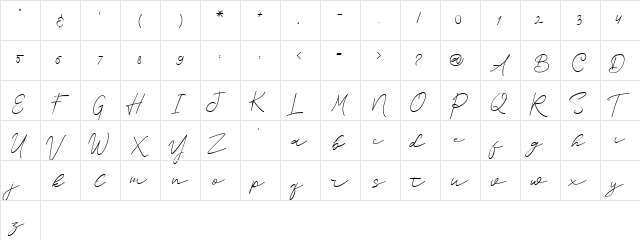
Sureder Stylish Regular
| Foundry | Rits Studio |
| Designer | Haris Purnama putr |
Design Context for Sureder Stylish Typeface
Sureder Stylish is a composed and adaptable typeface that performs quietly and consistently across a wide range of design contexts.